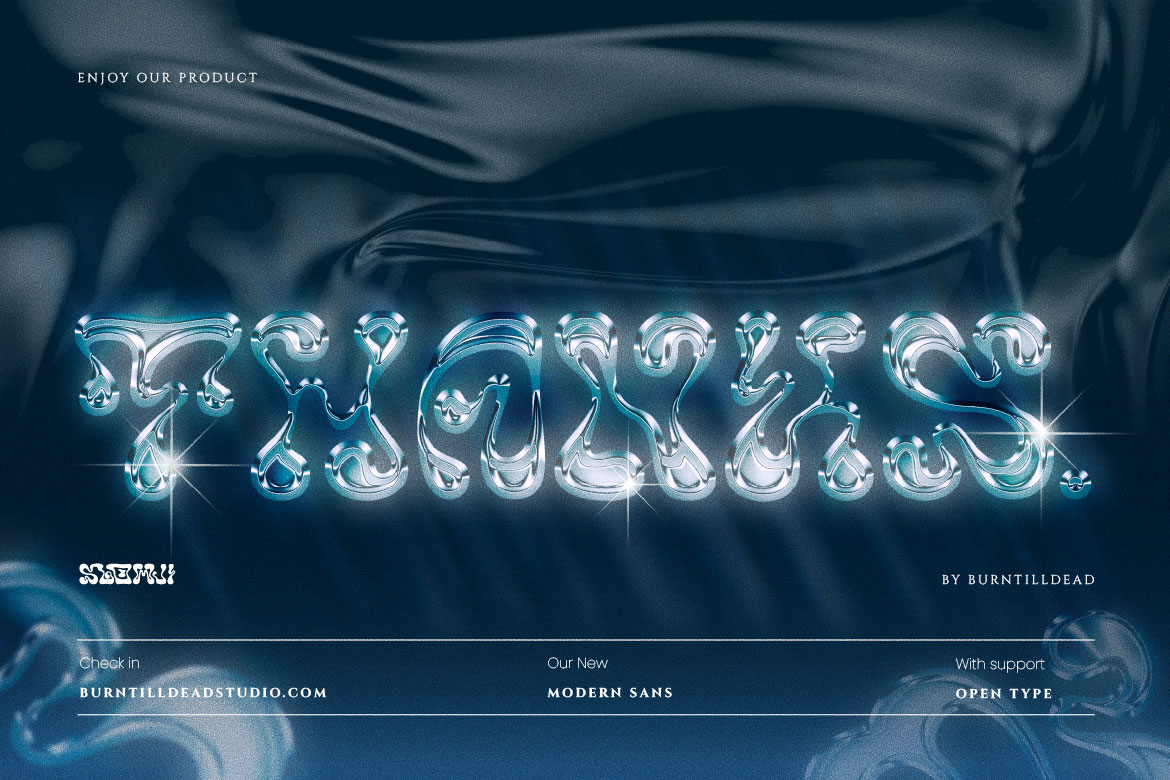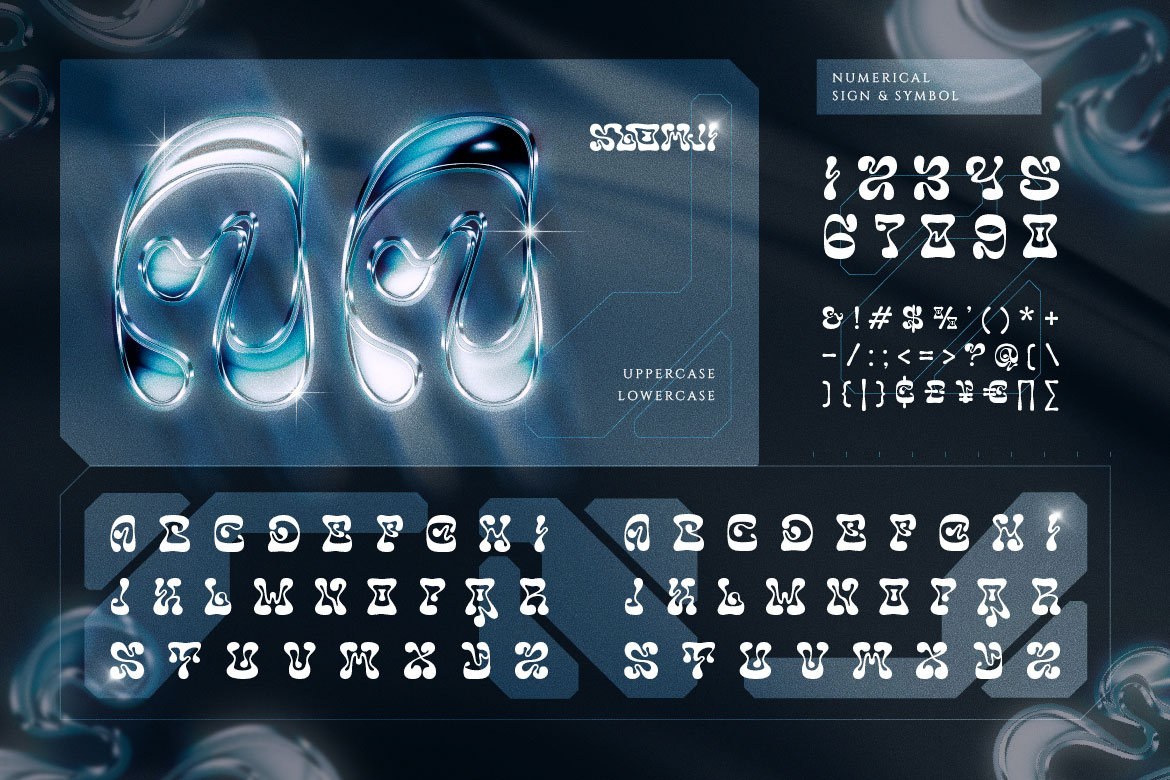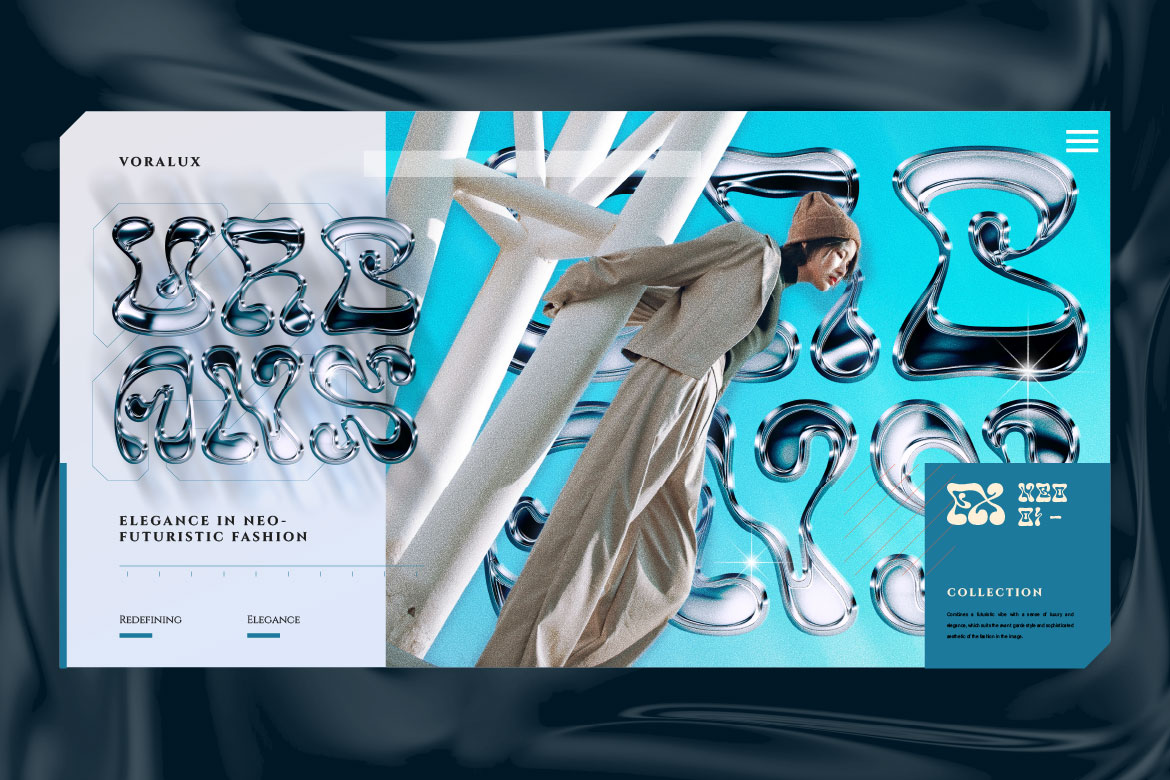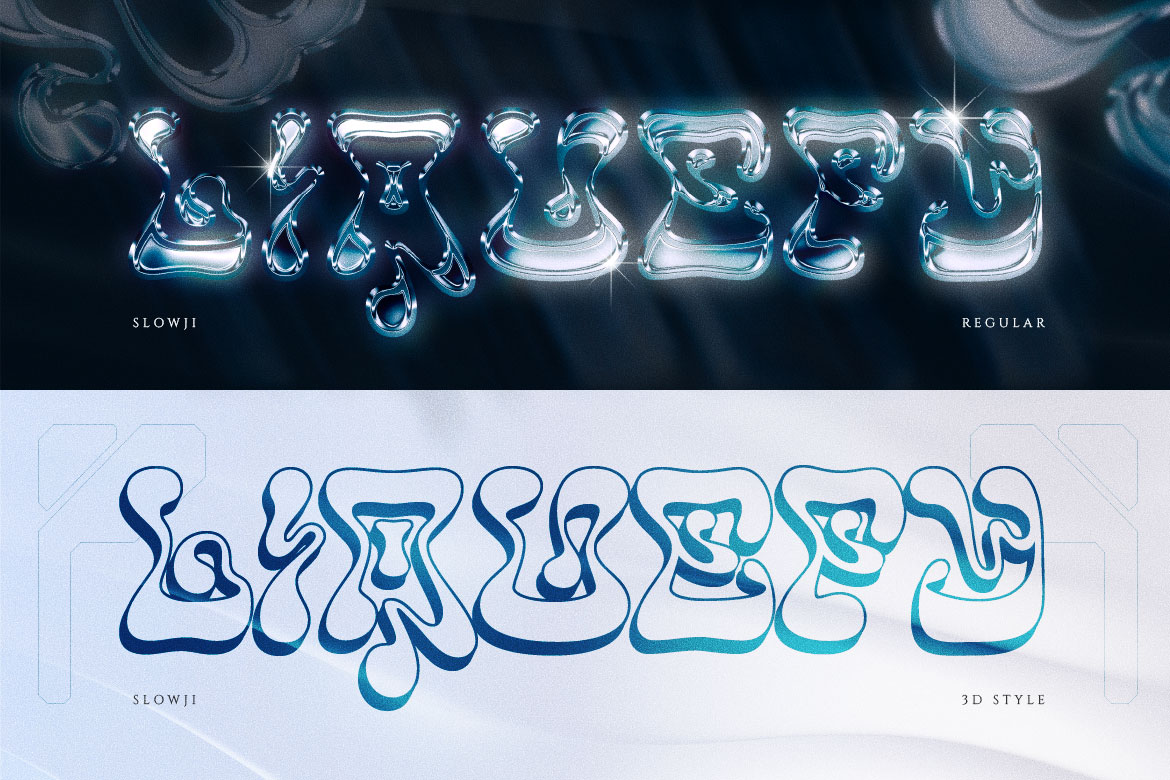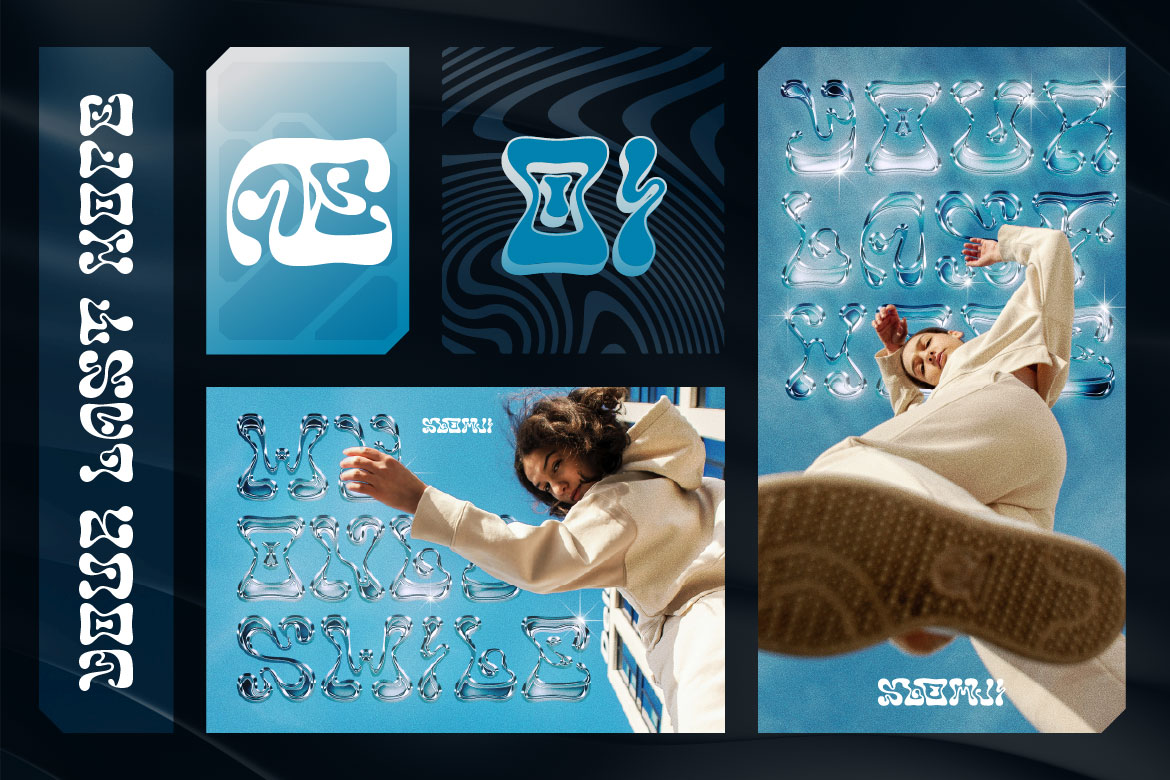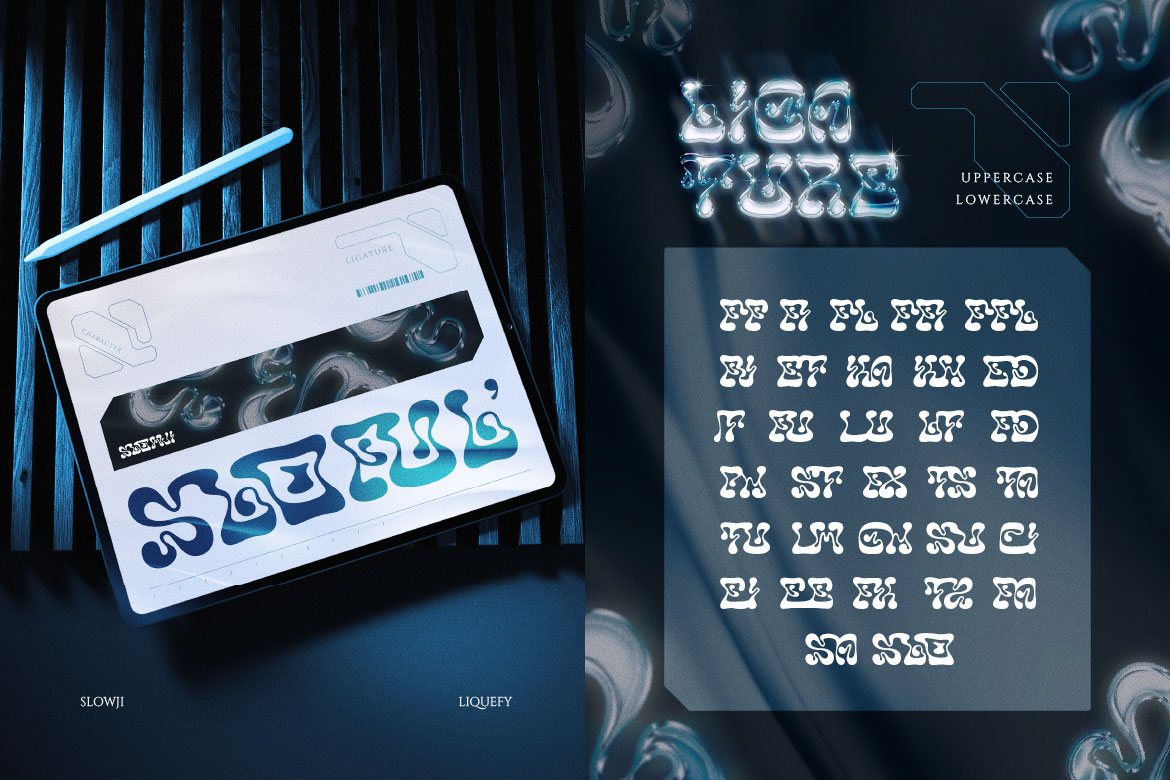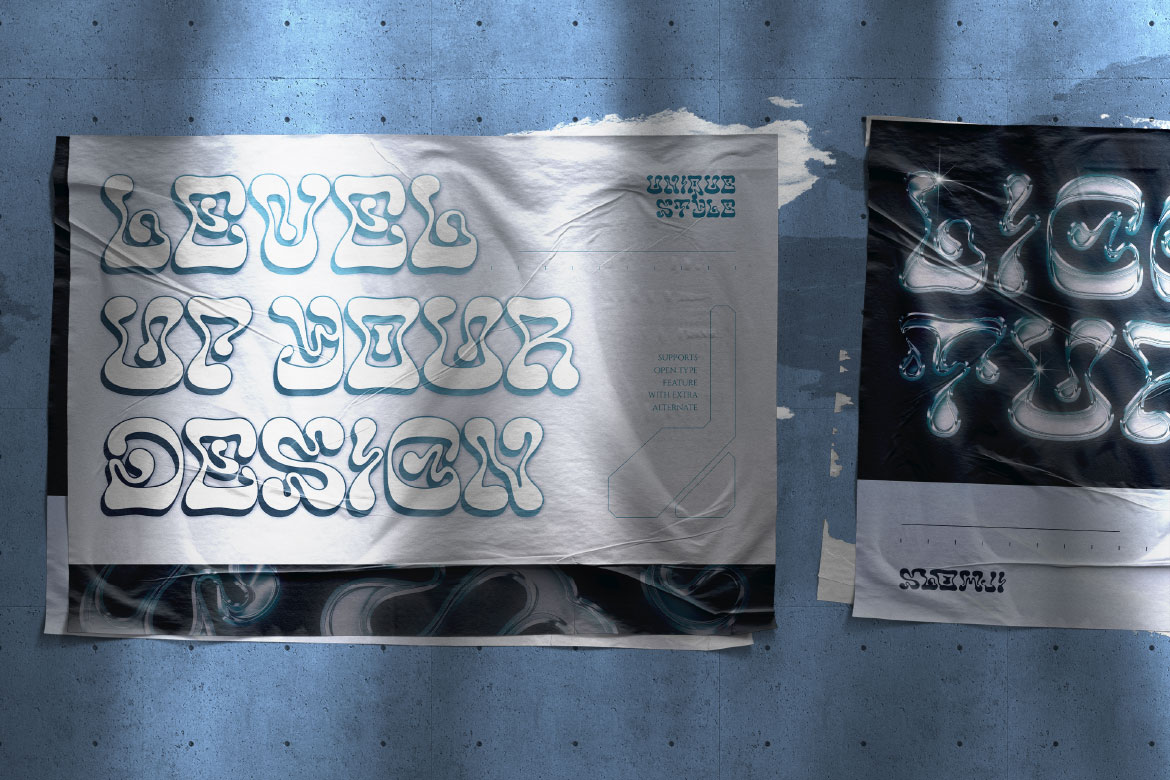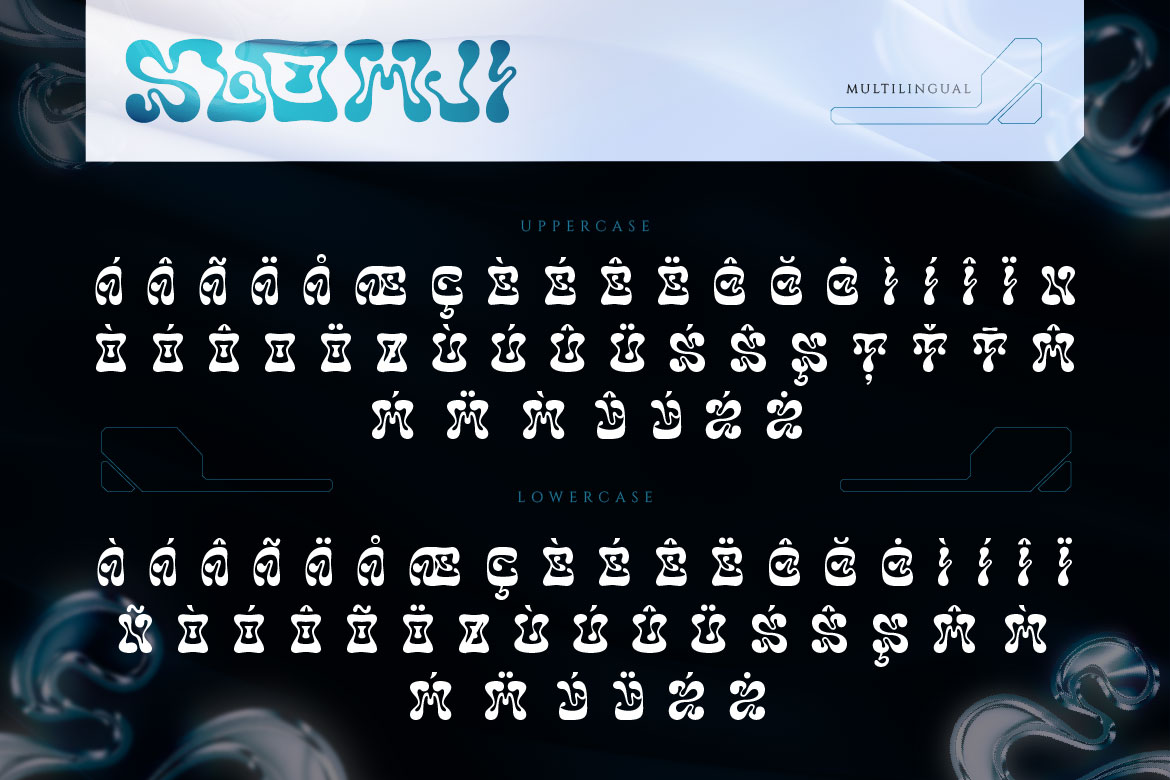
Slowji – Liquid Dynamic Typeface
Regular
3D
Meet Slowji, a one of a kind dynamic liquid font that inspired by psychedelic forms. Mesmerizing psychedelic liquid font that look like it’s melting right off the page. With its flowing shapes, wavy strokes and hypnotic curves, Slowji brings a sense of surreal movement to any design. Each letter feels alive — morphing, dripping, and twisting like a visual hallucination. It’s the perfect choice for projects that crave an offbeat, experimental vibe with a touch of wild imagination. This font perfect for trippy poster & zines, music festival branding, streetwear graphic, album cover and any design project that need trippy, dreamy and liquid theme.
• Uppercase & Lowercase
• Number
• Punctuation
• Ligatures
• Multilingual
• Slowji Characters Map